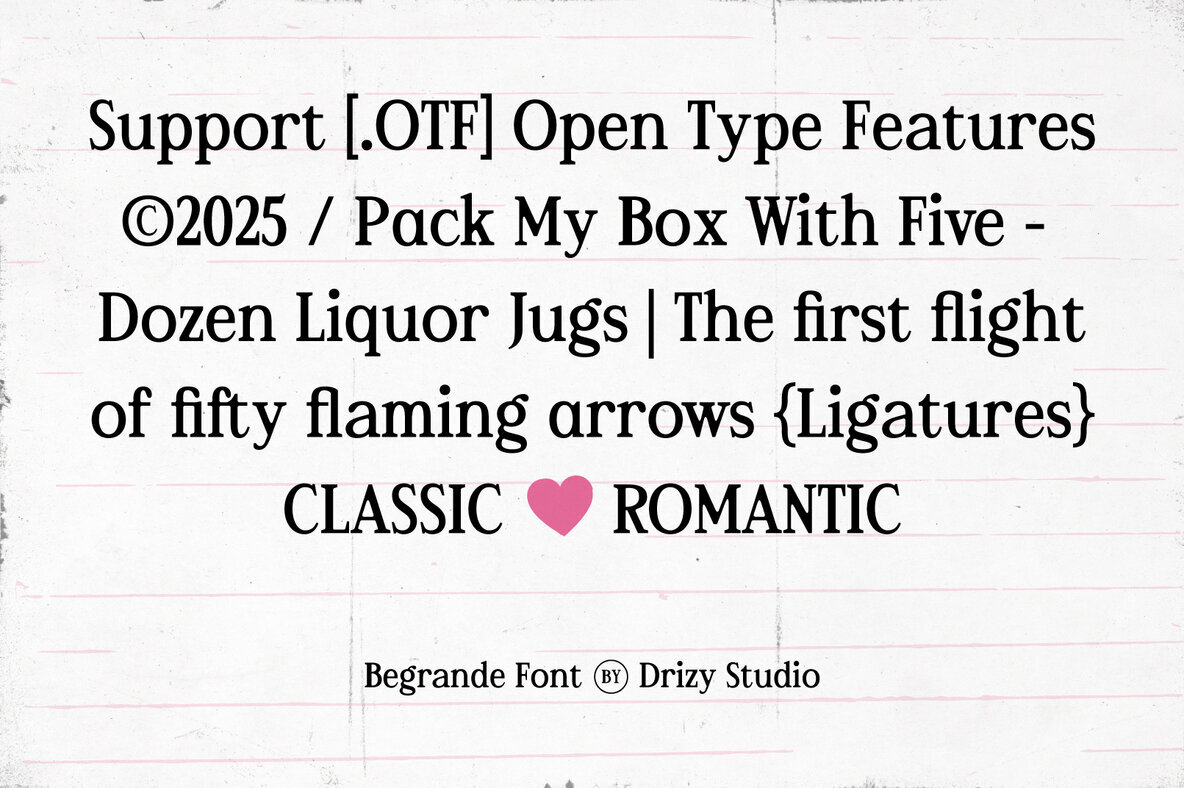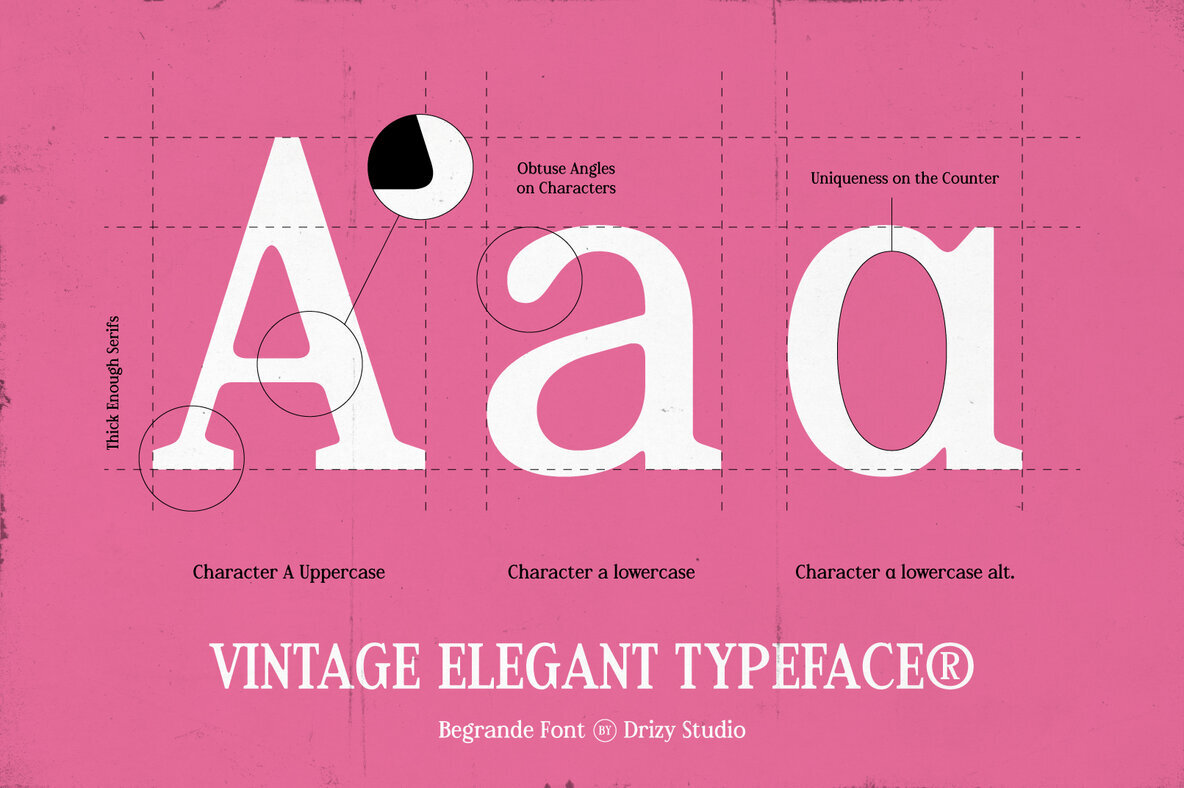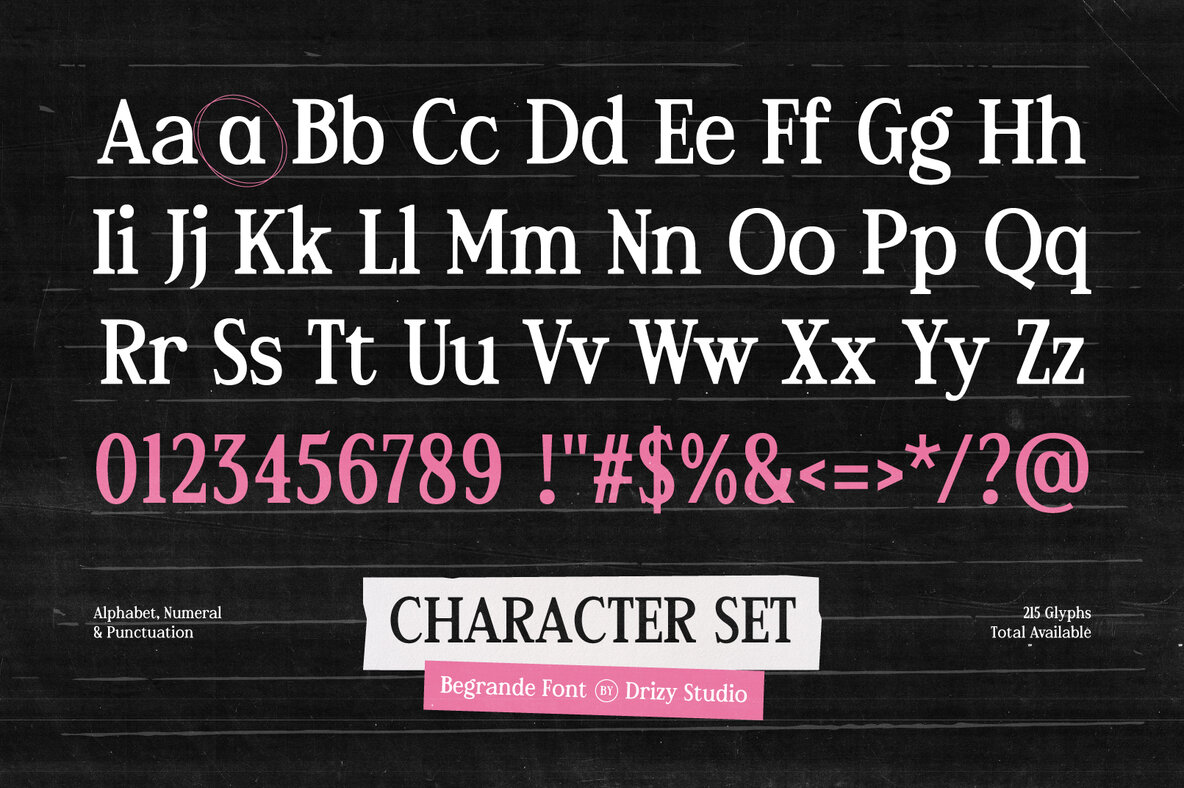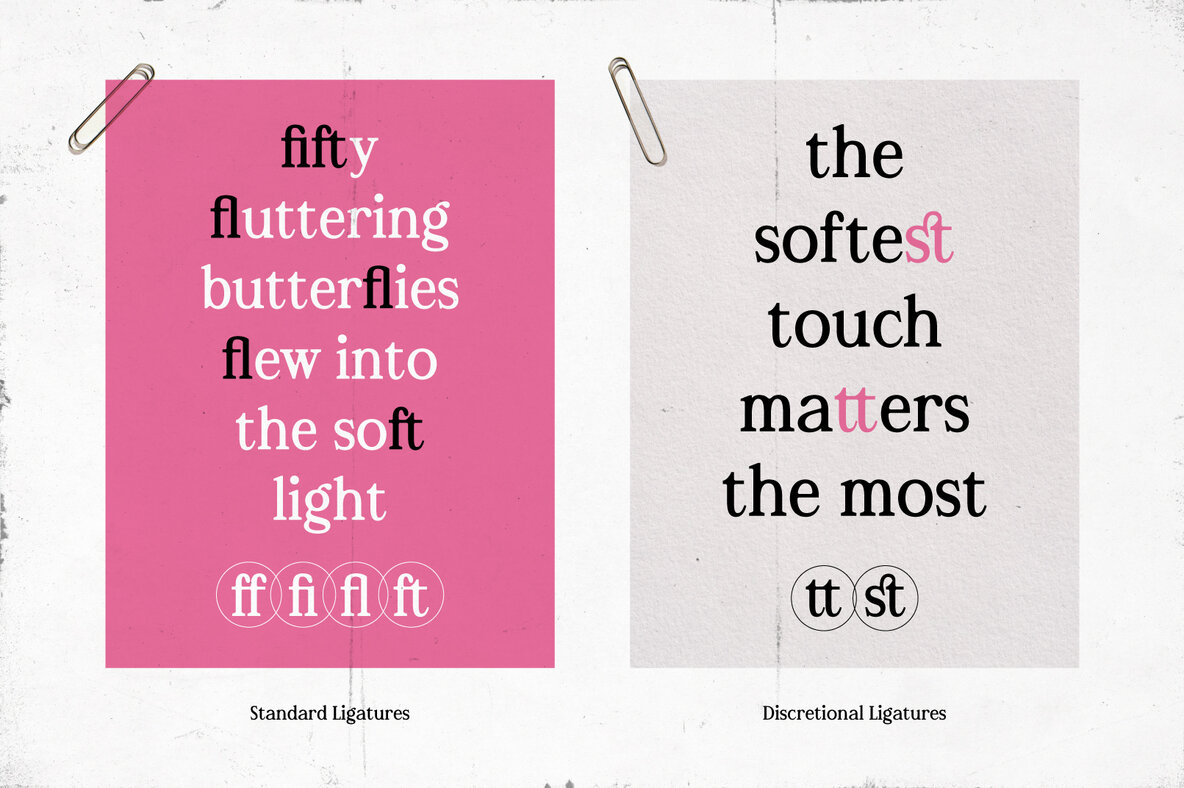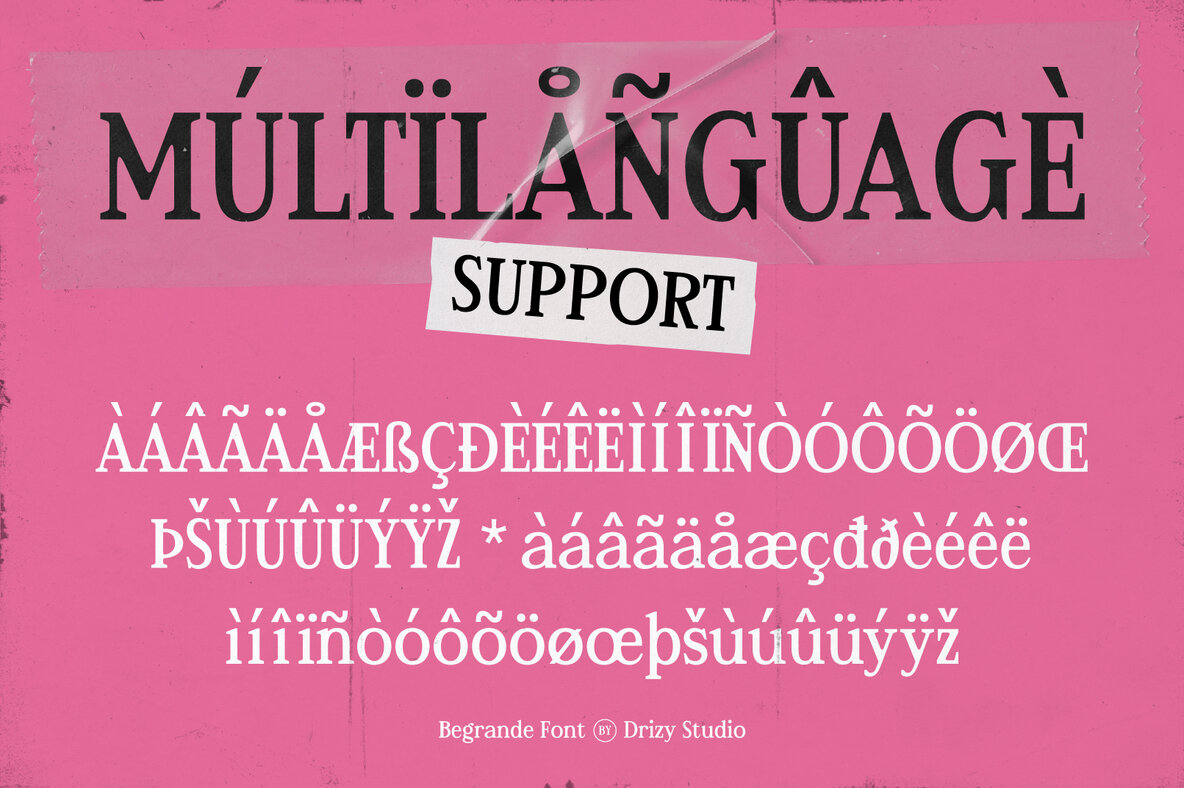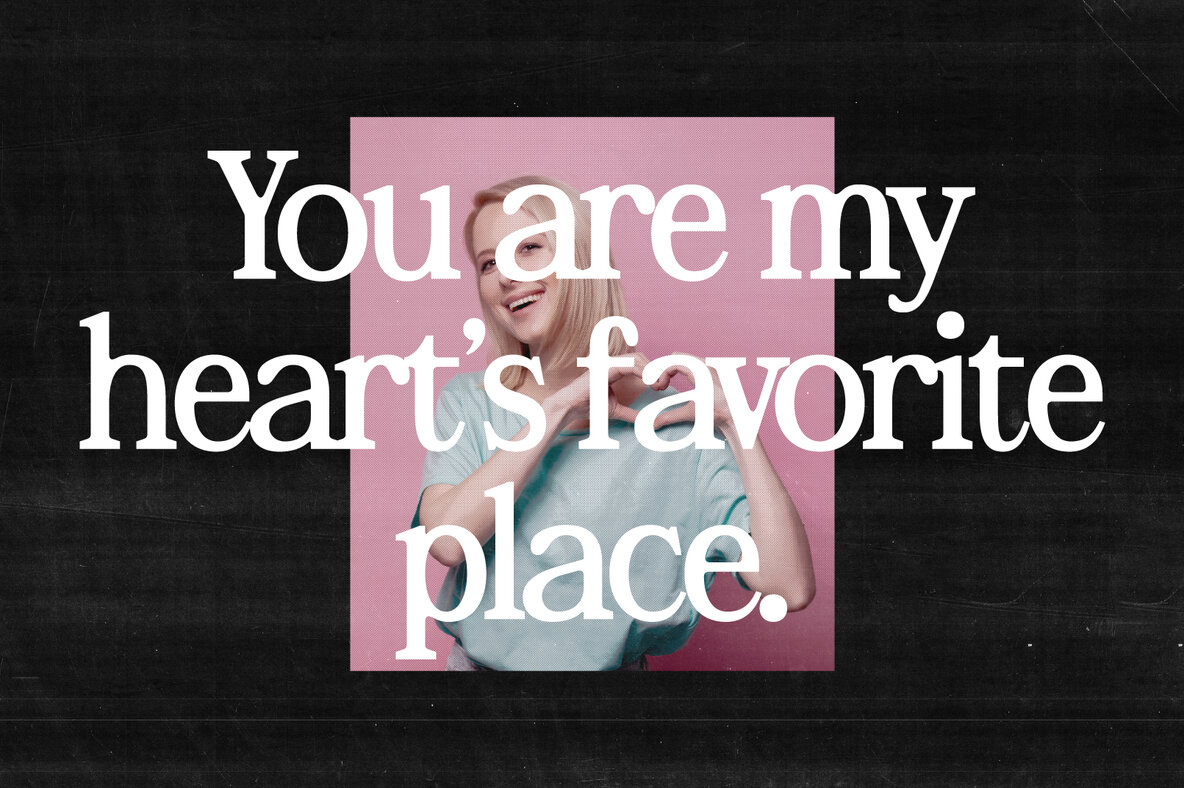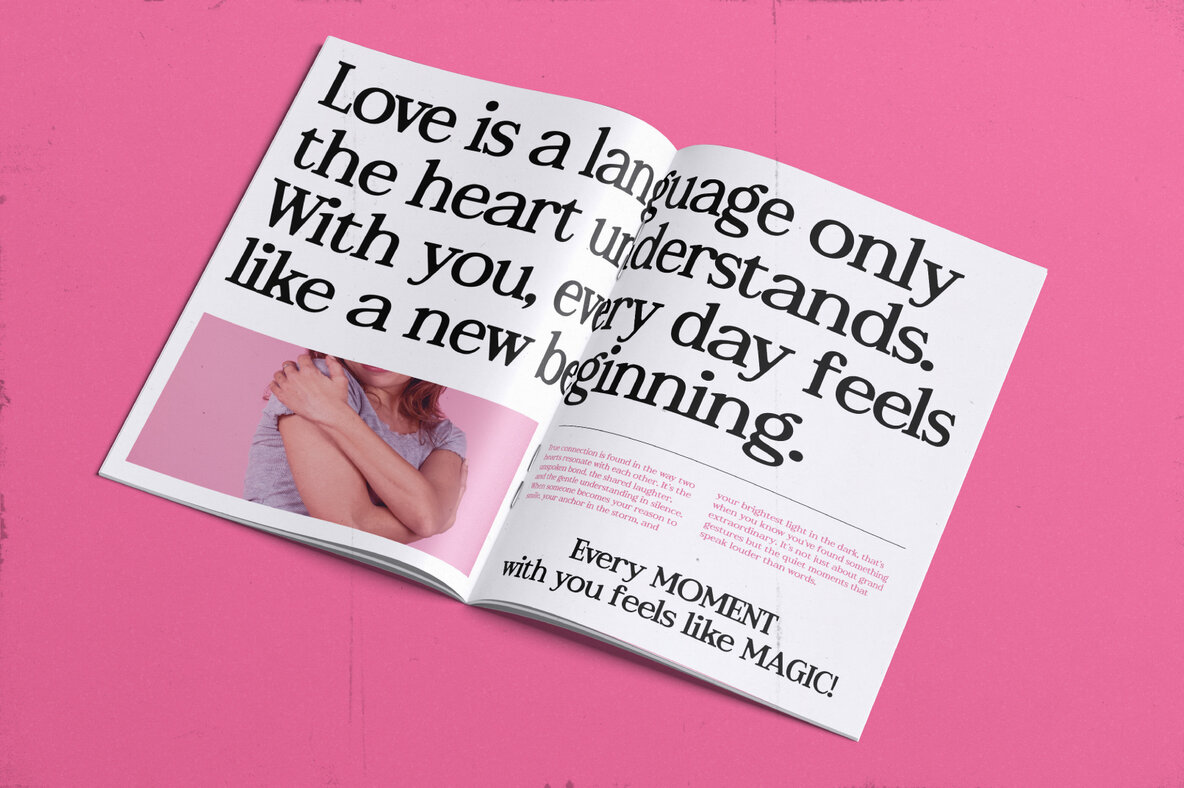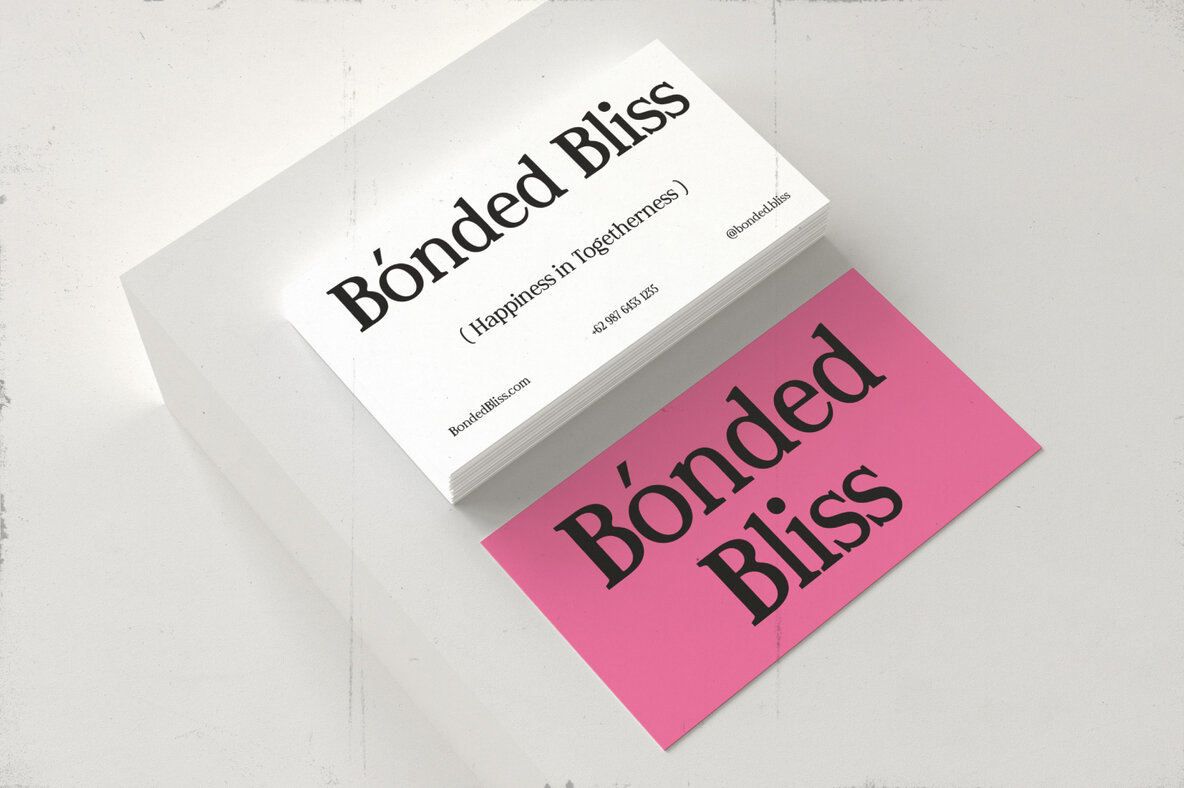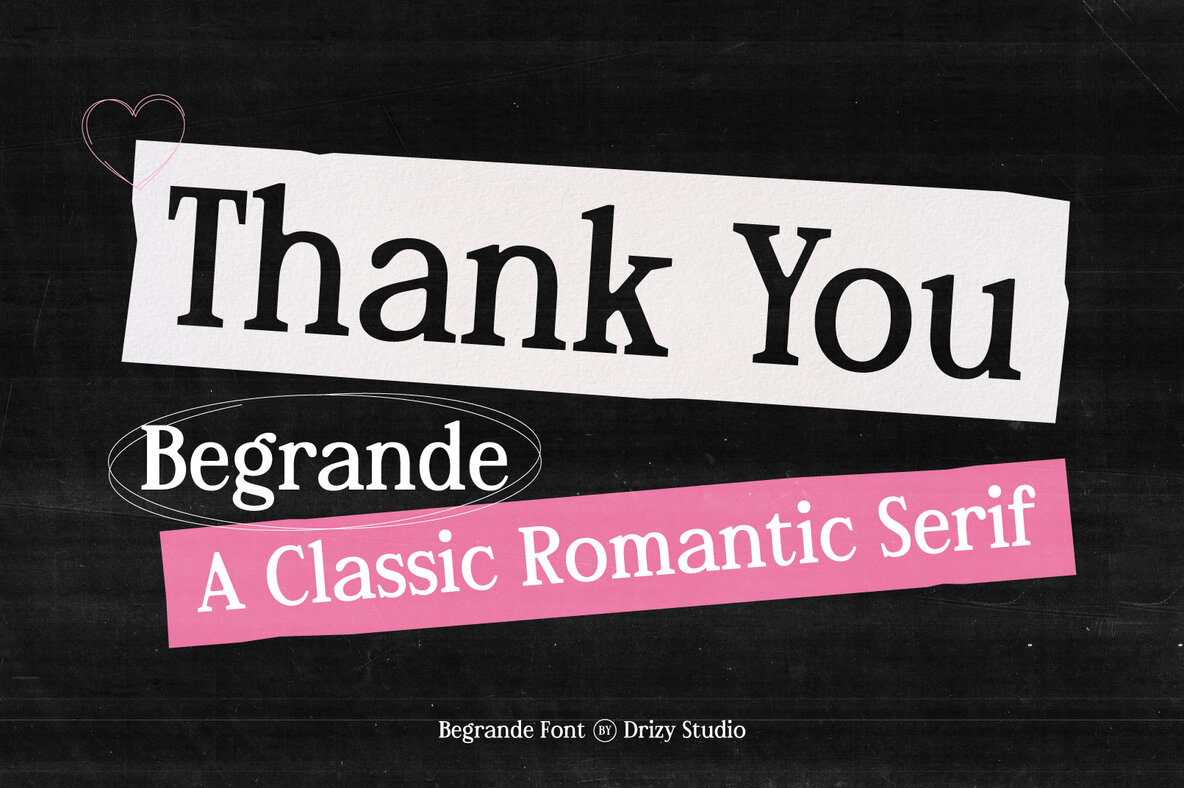
Begrande Font
Begrande Regular
Begrande is a timeless serif font that elegantly blends romance with a touch of vintage allure, making it ideal for expressive and heartfelt designs. Its graceful curves and delicate serifs capture the essence of love and emotion, making it a perfect choice for wedding invitations, poetry collections, or emo-inspired projects. The font’s romantic aesthetics add a classic yet emotional flair, bringing stories to life with each letter.
Designed to enhance your projects, Begrande includes a comprehensive character set featuring both uppercase and lowercase letters, punctuation, and numbers. Its multilingual capabilities make it versatile for a global audience. Additionally, the font offers standard and discretionary ligatures, as well as alternate forms of letters like "a", expanding your creative possibilities. With Begrande, bring a touch of romance and drama to your typography.